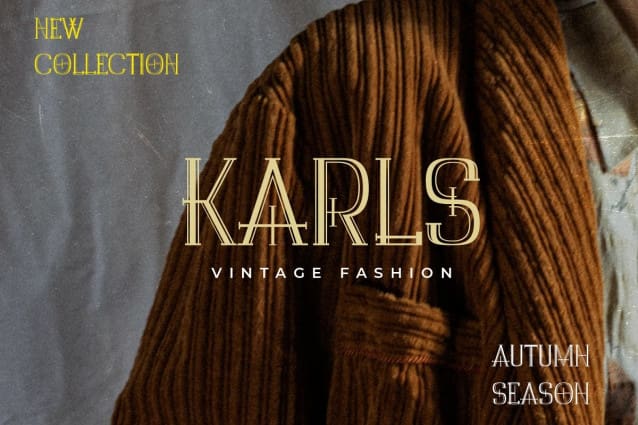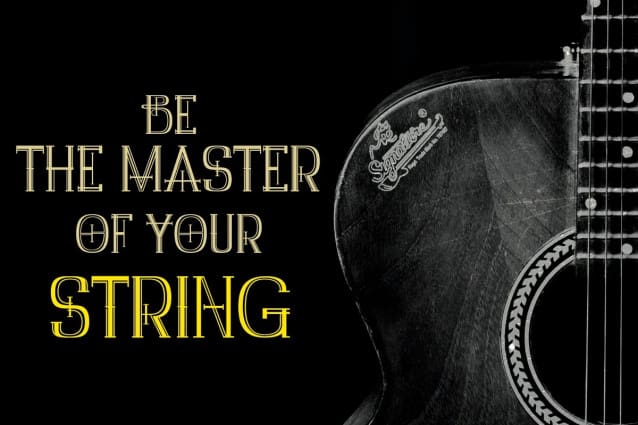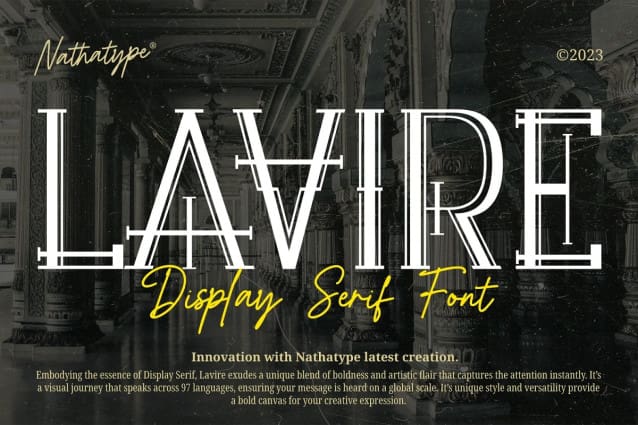
Lavire Font
Lavire Font is an uppercase display serif font that is effortlessly made in a truly unique typographic masterpiece. Each uppercase letter in Lavire Font is a work of art in itself. The serifs, which are typically known for their traditional elegance, take on a modern and imaginative twist with Lavire’s addition of artistic lines and flairs.
The artistic lines and flairs in this font are carefully crafted to enhance the overall composition of each letter. They bring a sense of motion and dynamism to the font, making it particularly well-suited for projects that seek to convey a sense of movement or elegance.